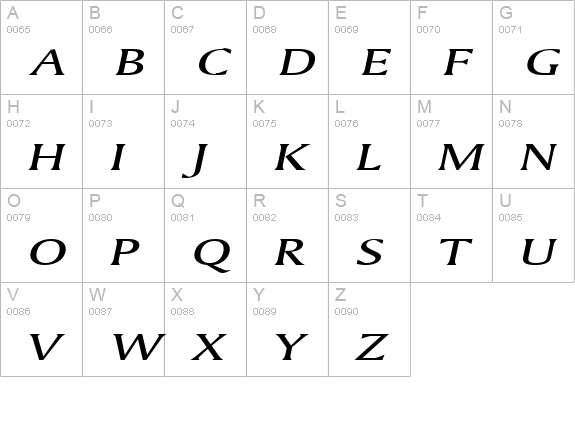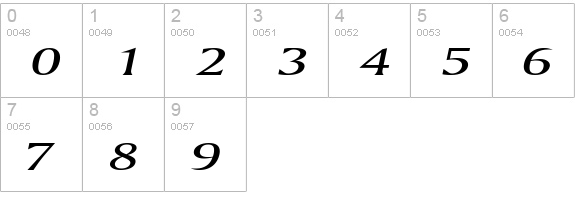
Ameretto Extended Italic is a distinctive, extended-width, italic variant in the Ameretto typeface family \xE2\x80\x94 well suited to design and typography projects.
Ameretto Extended Italic font is a stylish and sophisticated typeface that exudes elegance and charm. With its slanted design and elongated letterforms, this font is perfect for adding a touch of flair to any project. The flowing curves and delicate serifs give Ameretto Extended Italic a sense of grace and refinement. Best of all, this exquisite font is available for free download at FontsMarket.com. Whether you're working on a design project, creating invitations, or simply looking to elevate your typography game, Ameretto Extended Italic is a versatile and eye-catching choice. Don't miss out on the opportunity to enhance your creations with this stunning font that is both beautiful and freely accessible.